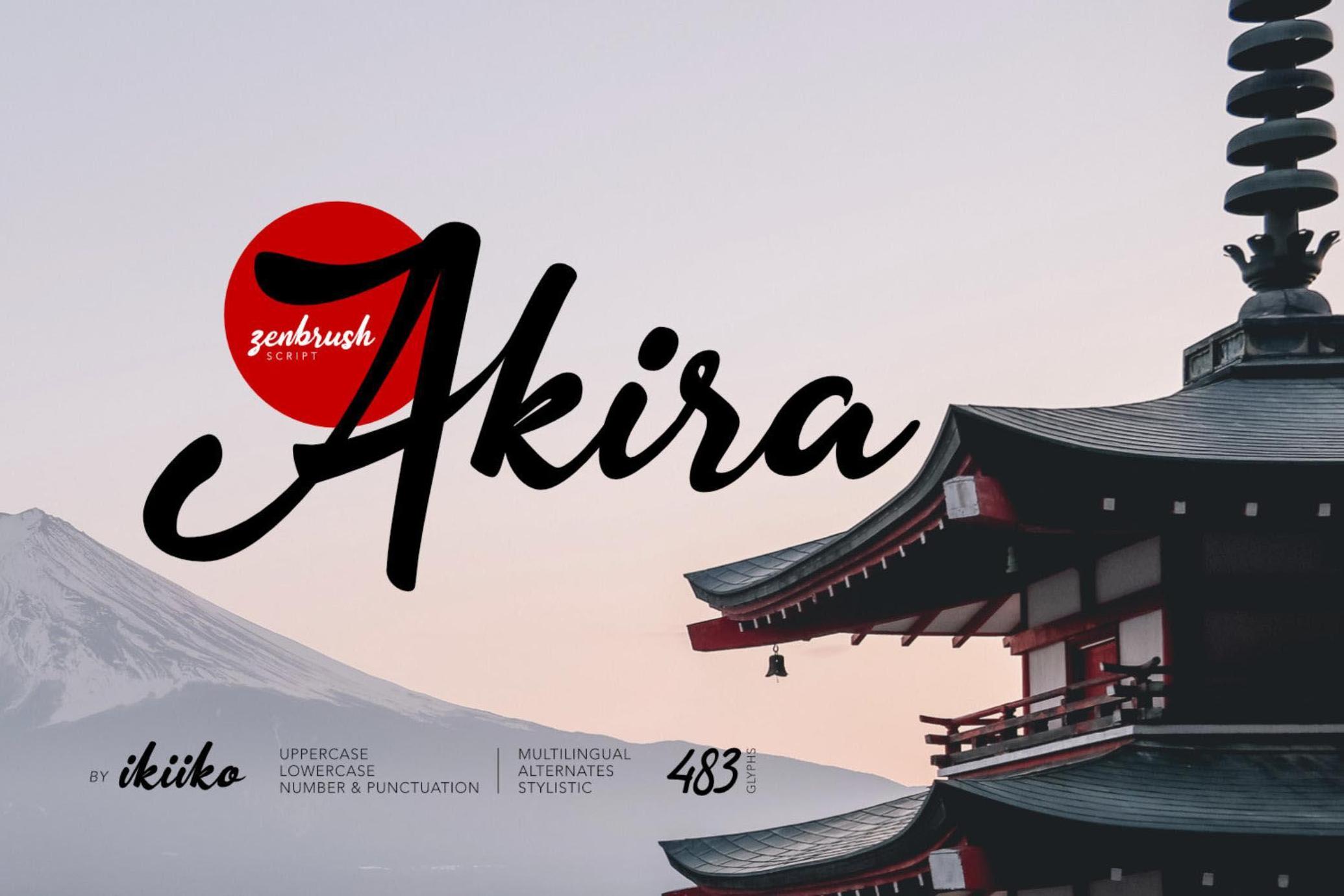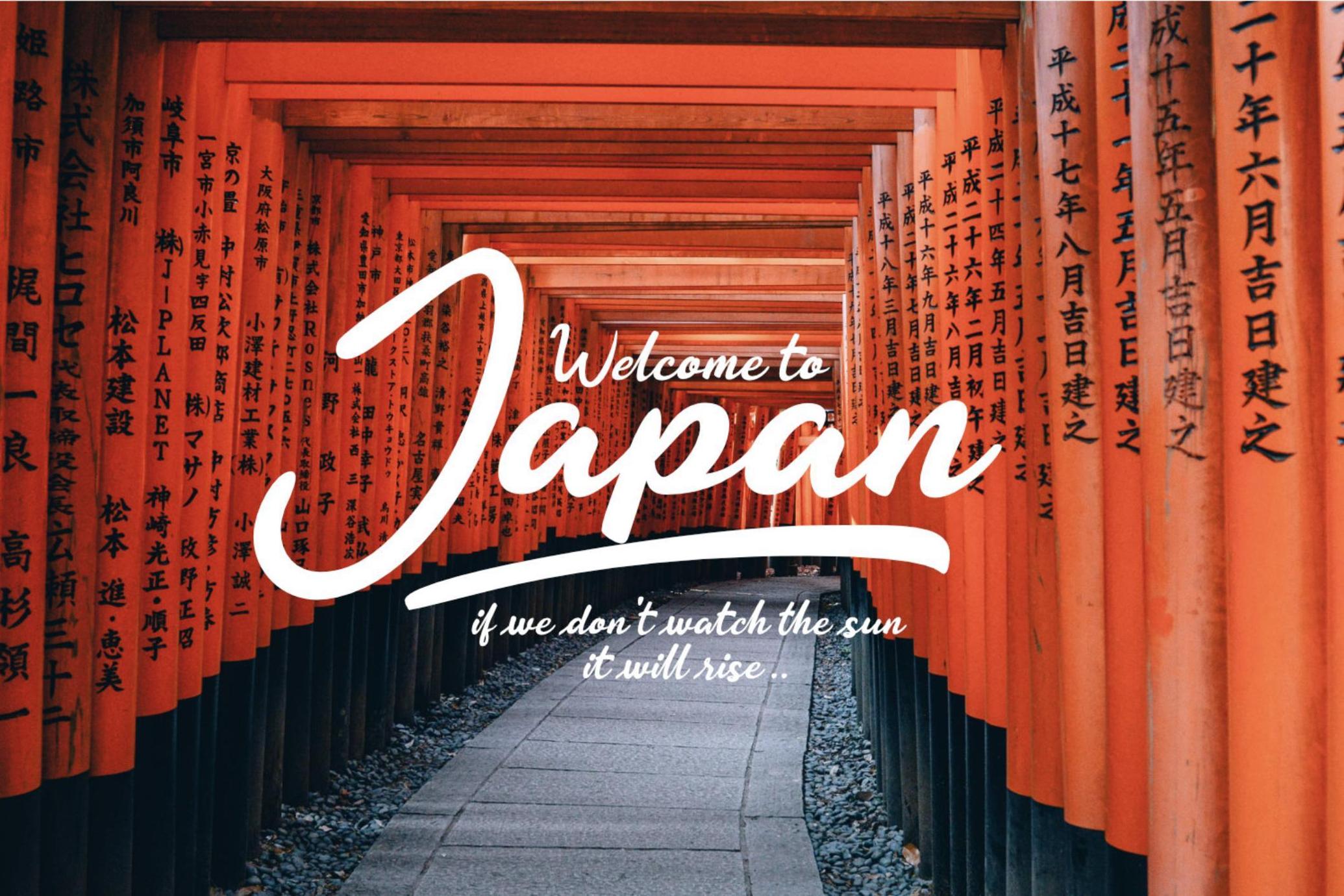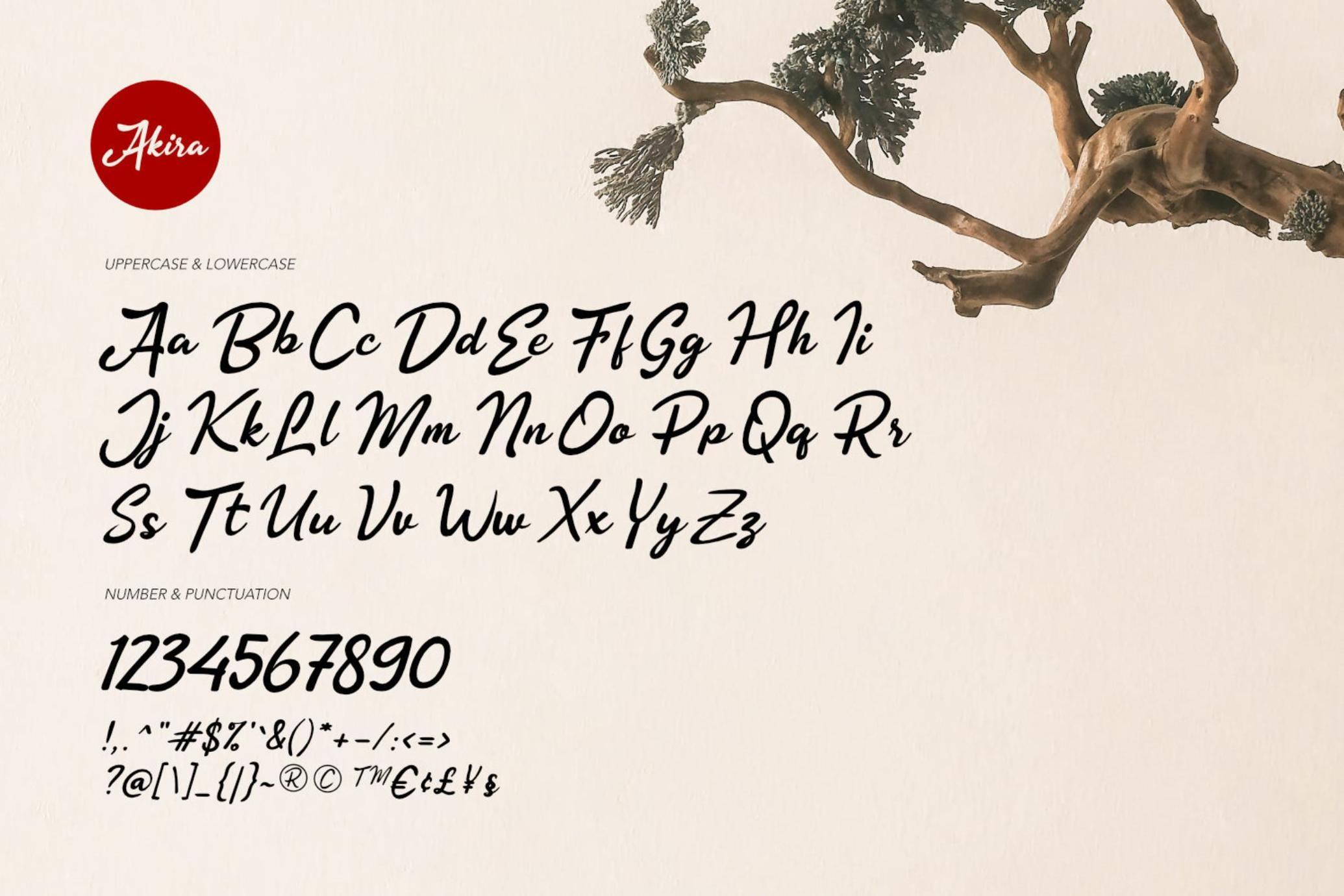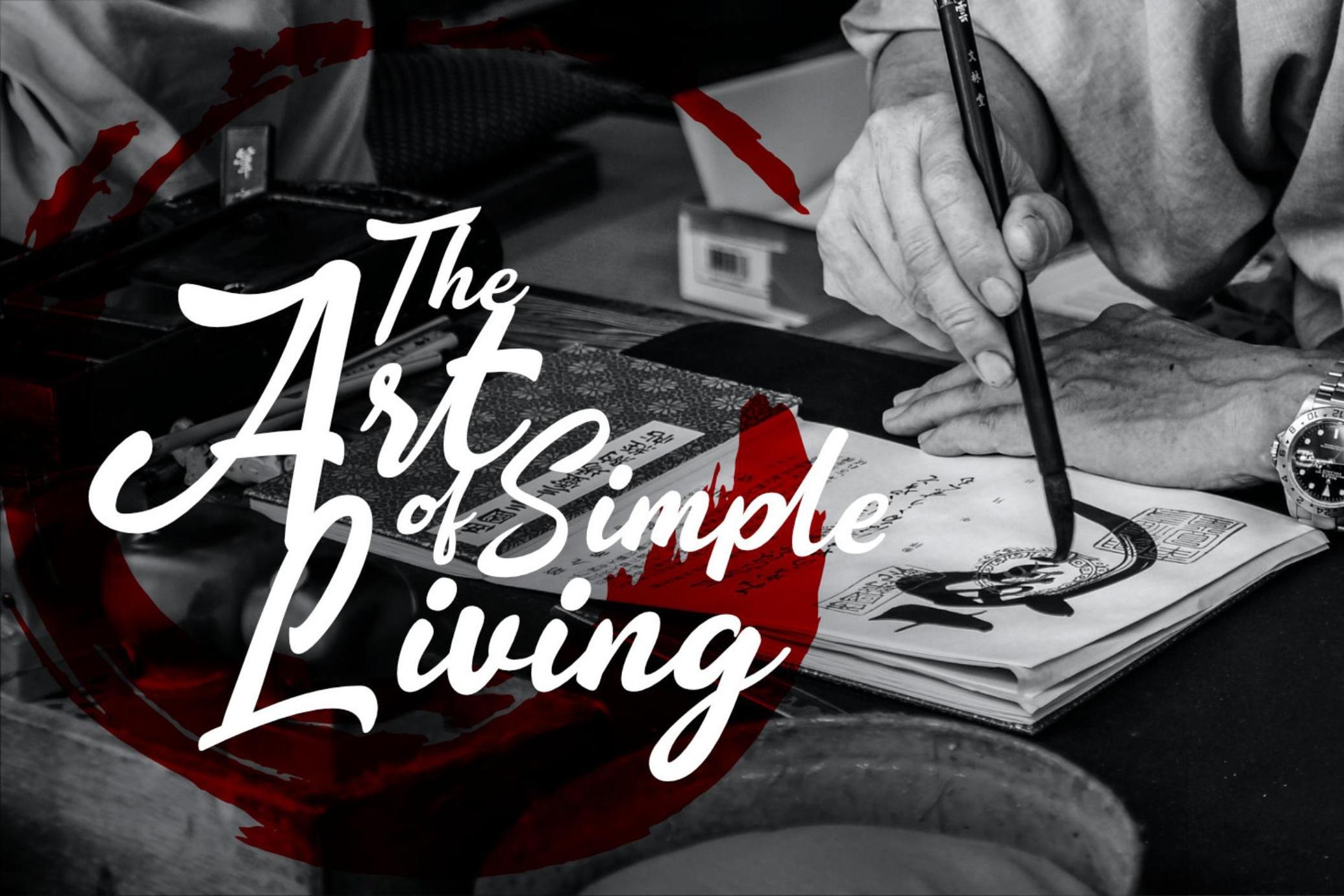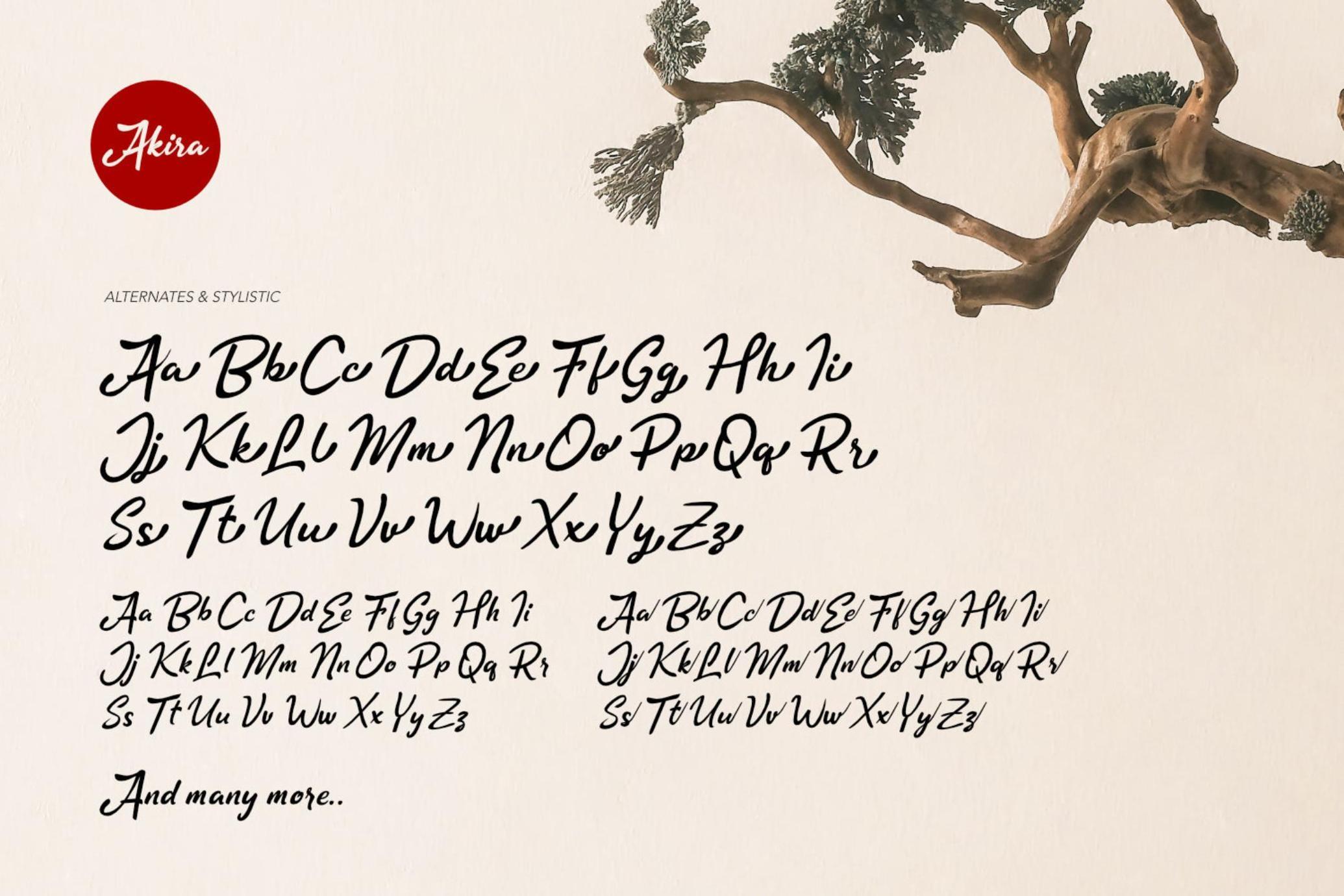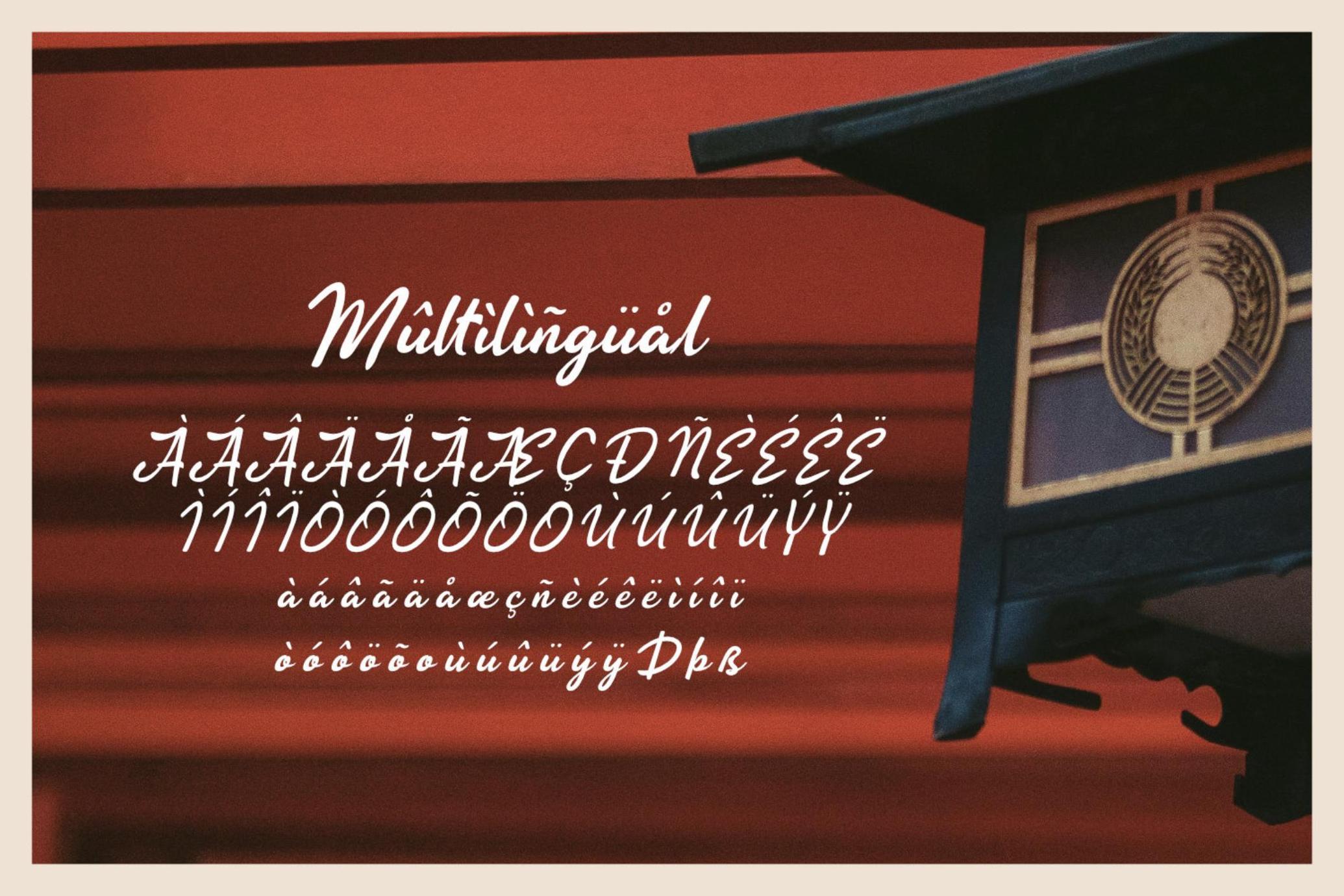
Akira - Zen Brush Script
Akira
Calm brush script type, adapted from Japanese zen culture. Akira typeface uses firm lines with strong curves with lots of alternates & stylistic options to choose. This typeface is perfect for an elegant logo, poster design, beauty product, packaging product, community logo, magazine, quotes, or simply as a stylish text overlay to any background image.
- Number & Punctuation
- Alternates & Stylistic